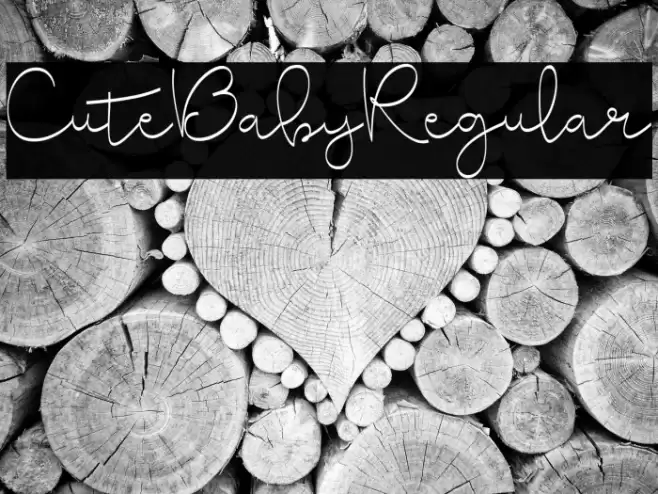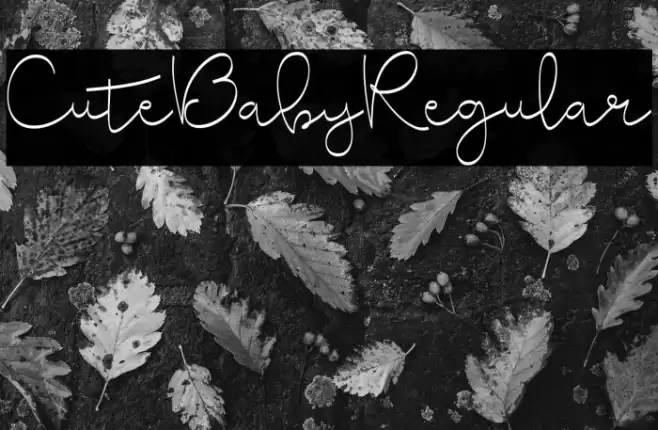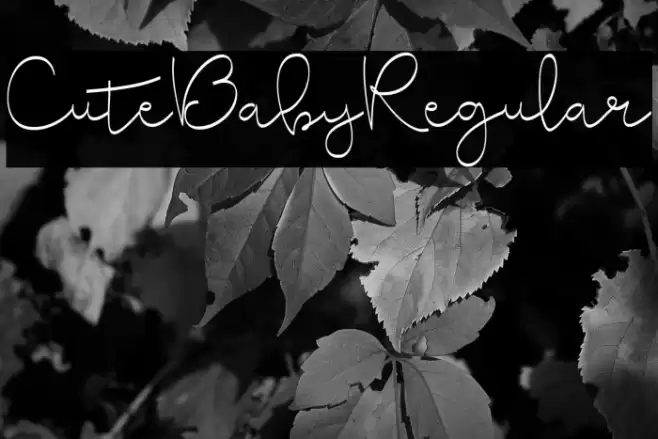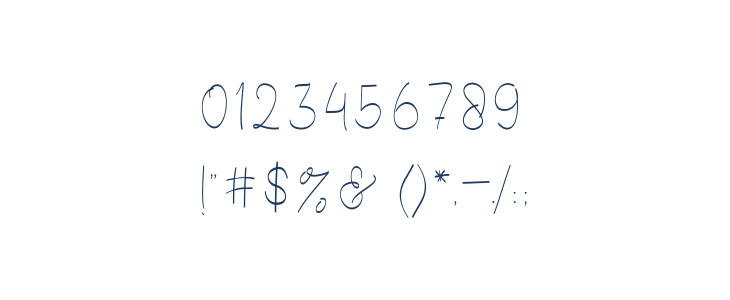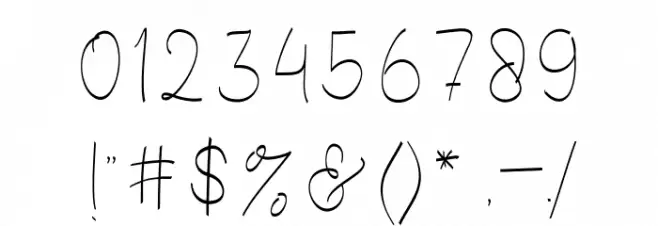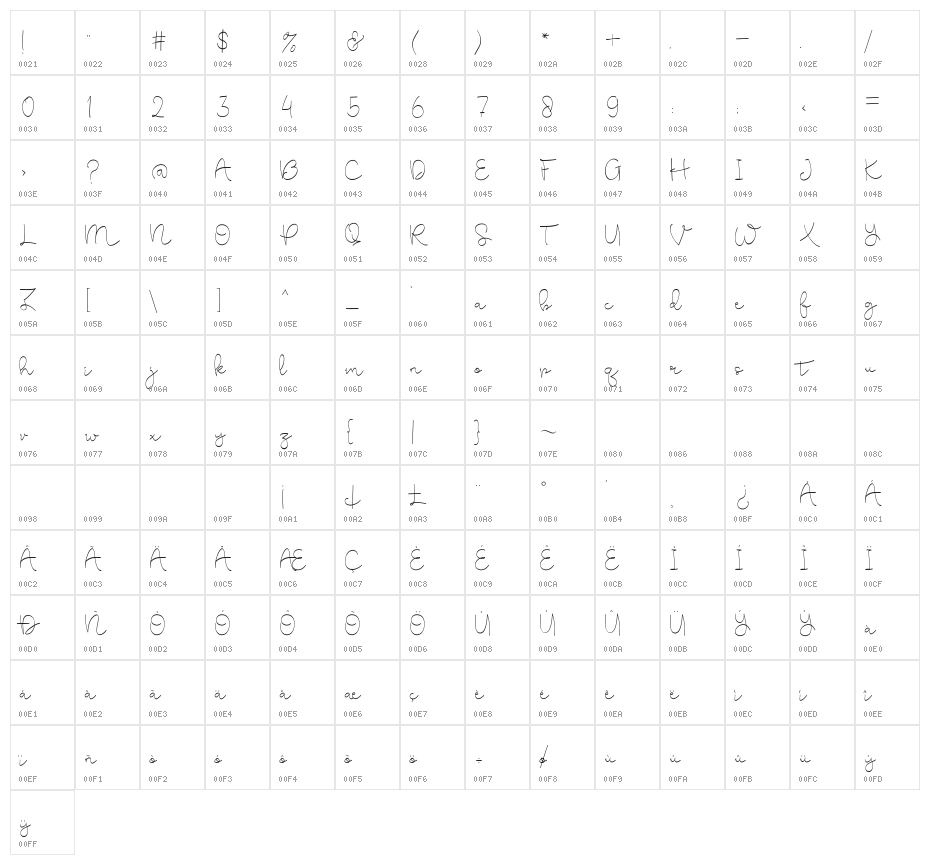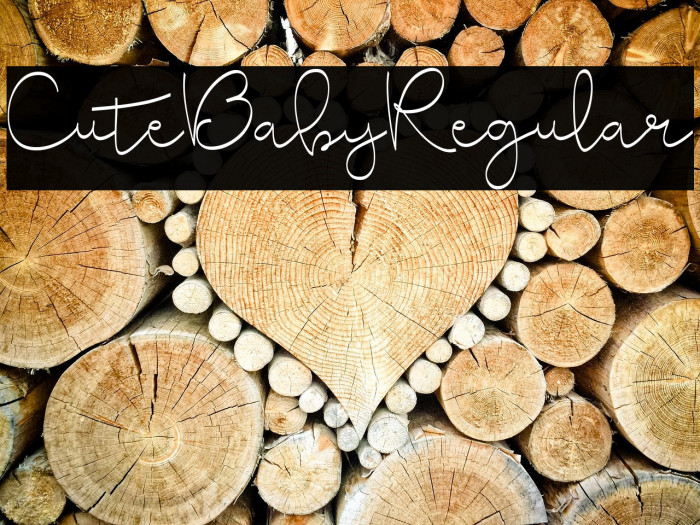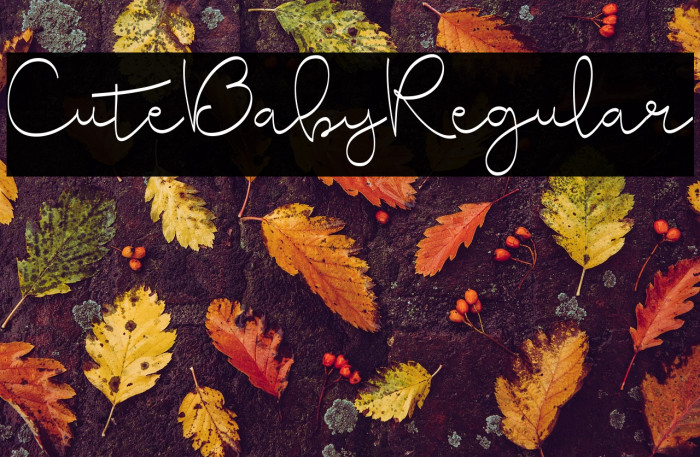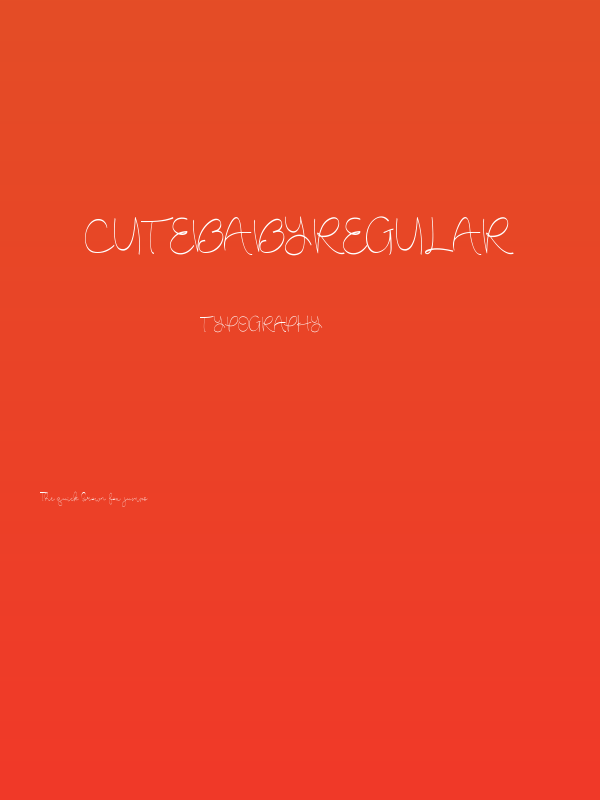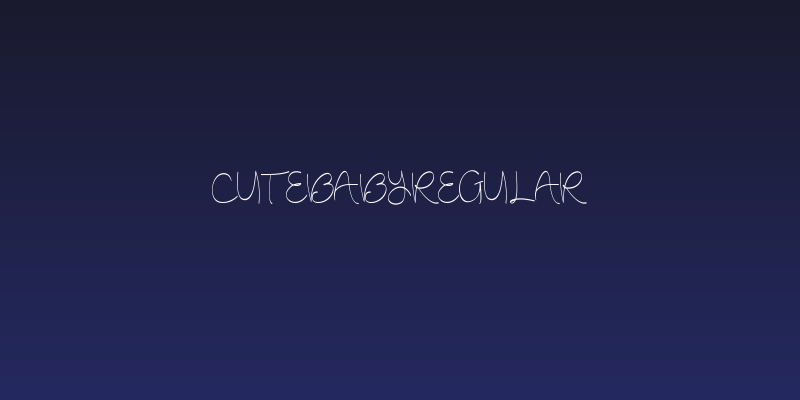
CuteBabyRegular Font
CuteBabyRegular Description
This font exudes a playful and whimsical charm, characterized by its flowing, handwritten style. The letters are elegantly connected, with a smooth and continuous stroke that gives it a personal and friendly touch. The uppercase letters maintain a consistent height, while the lowercase letters exhibit a delightful variation in size and form, adding to the font's dynamic appeal. The numerals are equally playful, with a slightly rounded appearance that complements the overall aesthetic. Special characters are thoughtfully designed, maintaining the font's cohesive and lively style. This font is perfect for projects that require a touch of personality and warmth.
A playful, handwritten font with a whimsical and friendly style from Regular fonts.
- Proposed Projects: Ideal for greeting cards, invitations, personal branding, and children's book covers.
- Overall Style: Playful, Whimsical
- Use Case: Logos, Invitations, Greeting Cards